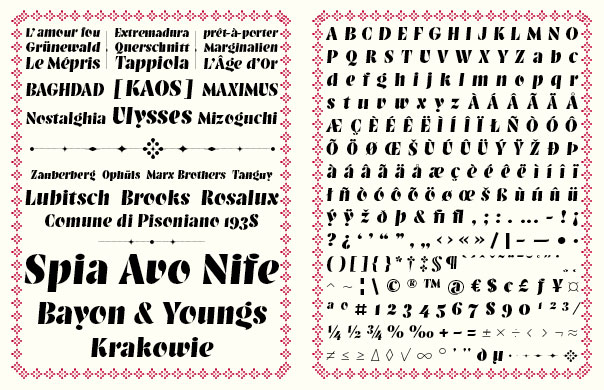
A contemporary interpretation of a hot-metal typeface released in 1937 by the Italian foundry Nebiolo. The original typeface by
H. Brünnel called Resolut never reached the era of photo-composition.
A very charming headline typeface is now available in digital format.
Balega doesn’t follow the original’s design slavishly. Each individual letter was carefully redrawn in a slightly steeper angle, some letters were altered and new glyphs were added accordingly to the overall new design.
Eine moderne Neuinterpretation einer Schrift, die vom Entwerfer H. Brünnel unter dem Namen Resolut 1937 bei Nebiolo in Turin erschienen ist.
Eine sehr reizvolle Headline-Schrift, die es nur für den Bleisatz gab, steht jetzt in einer zeitgemäßen Überarbeitung als digitale Schrift zur Verfügung.